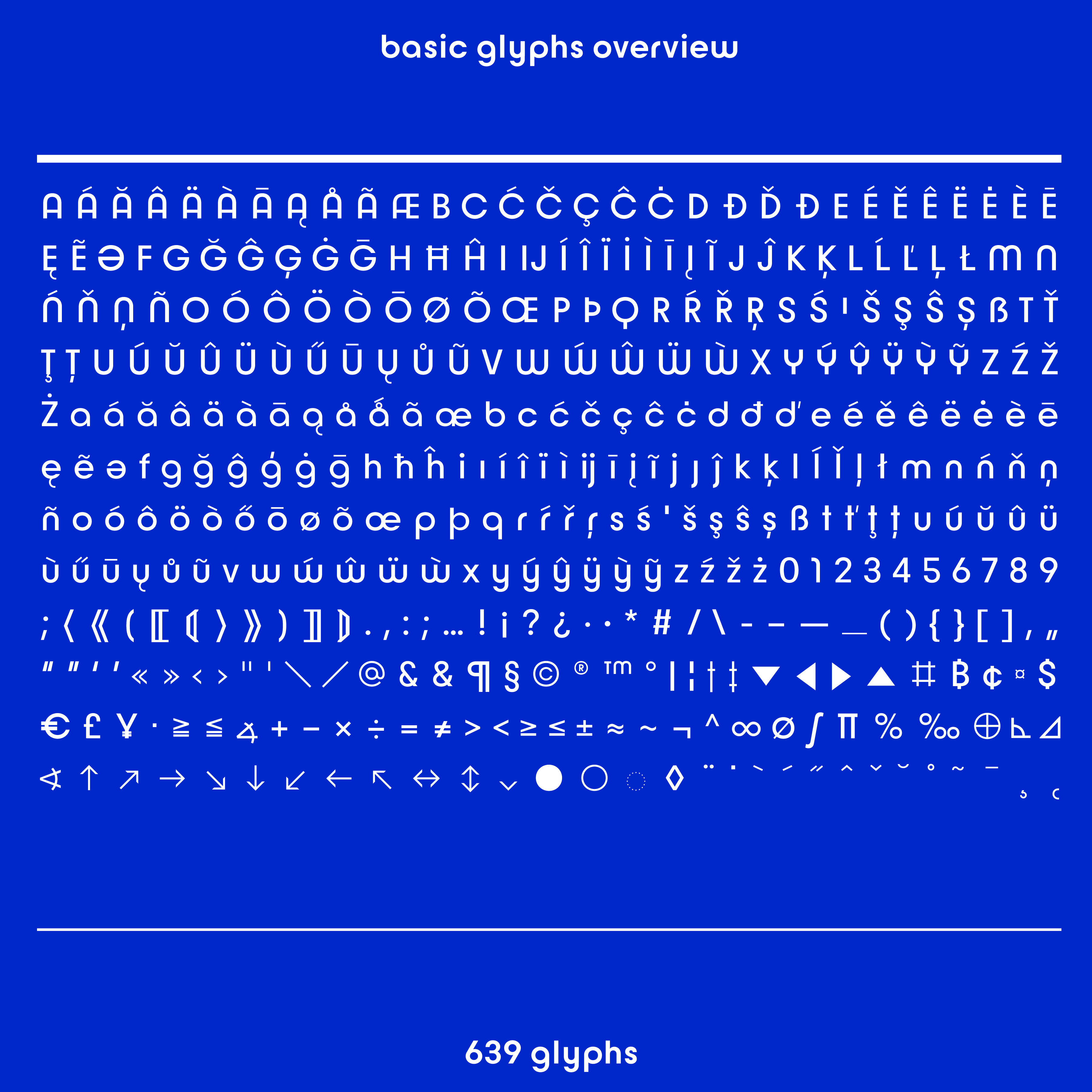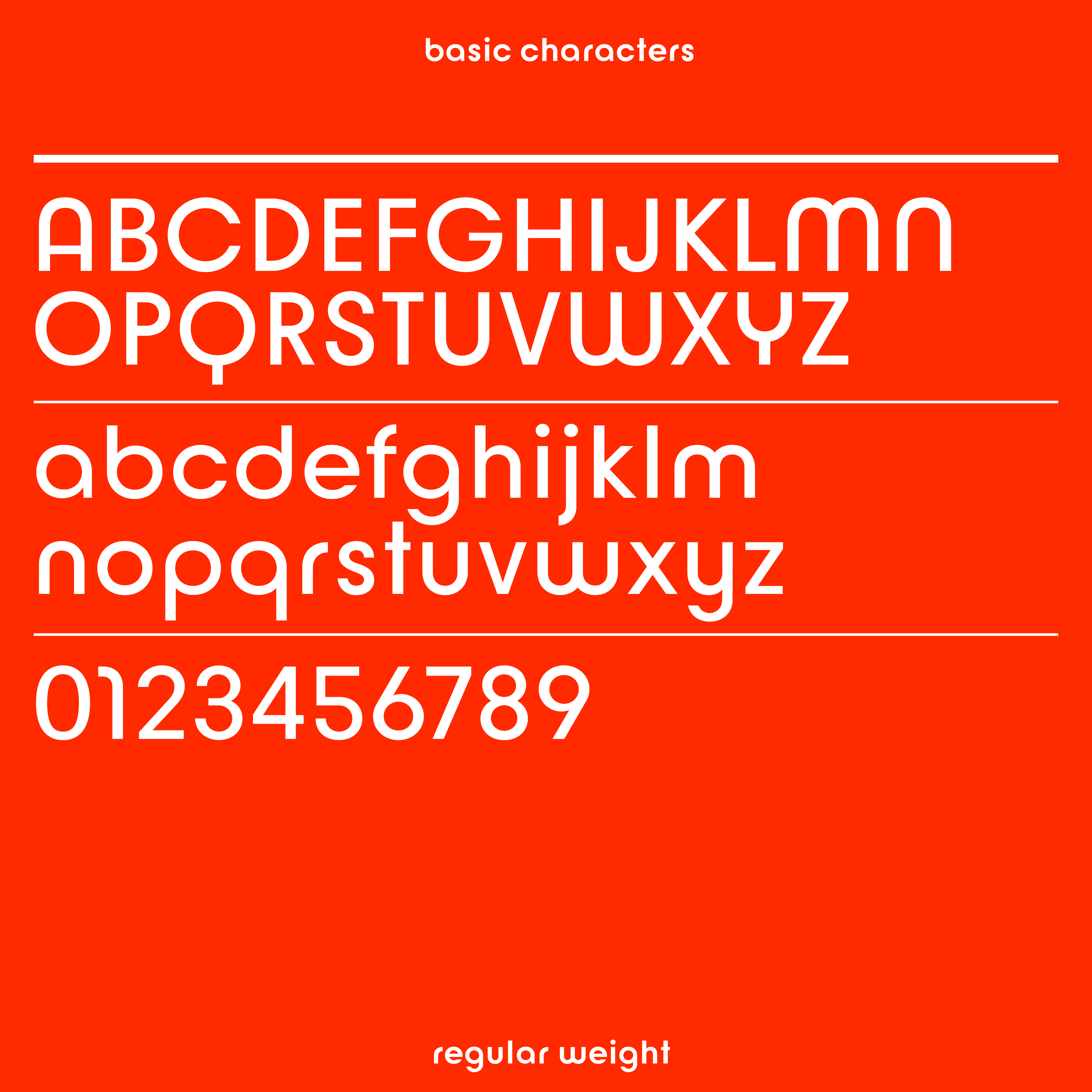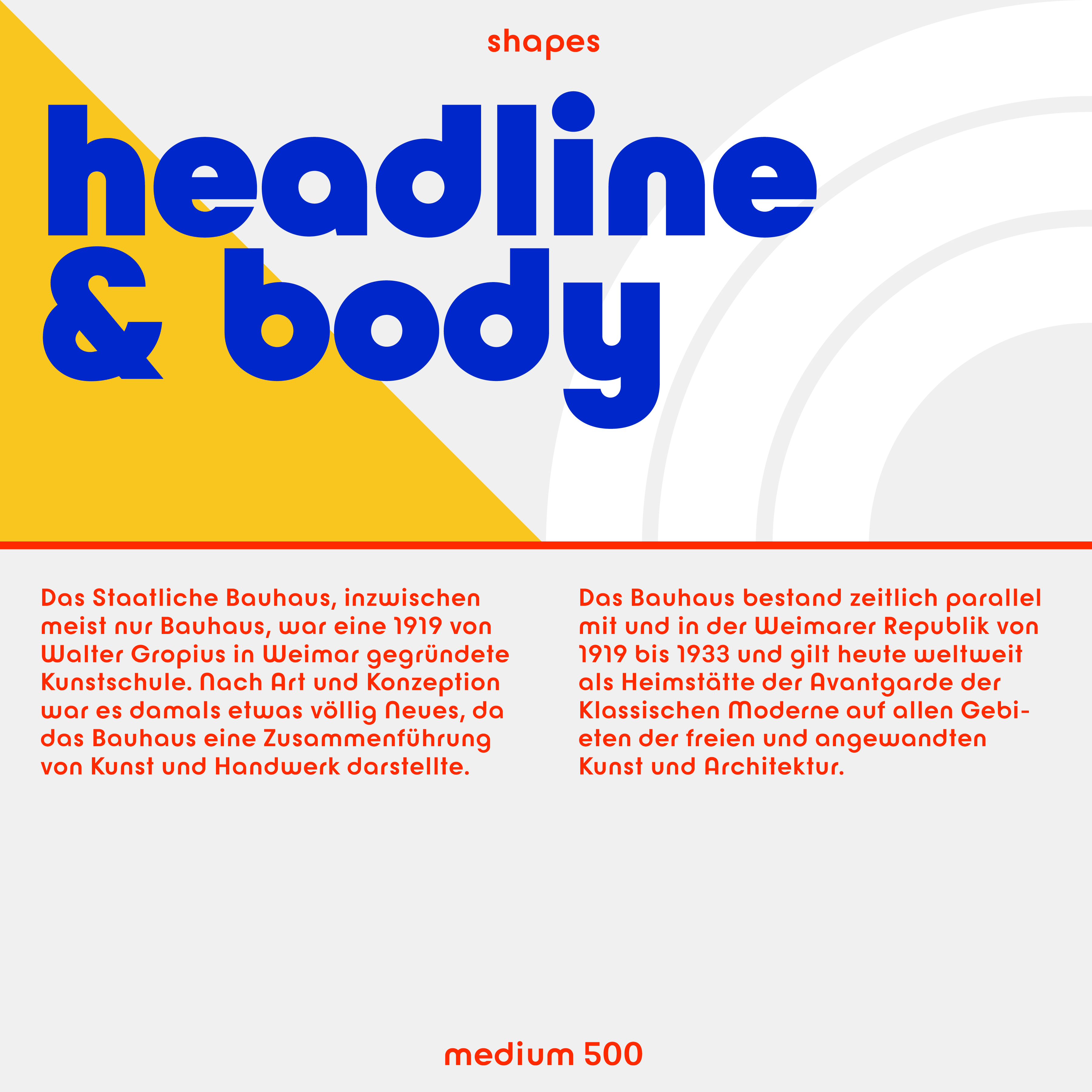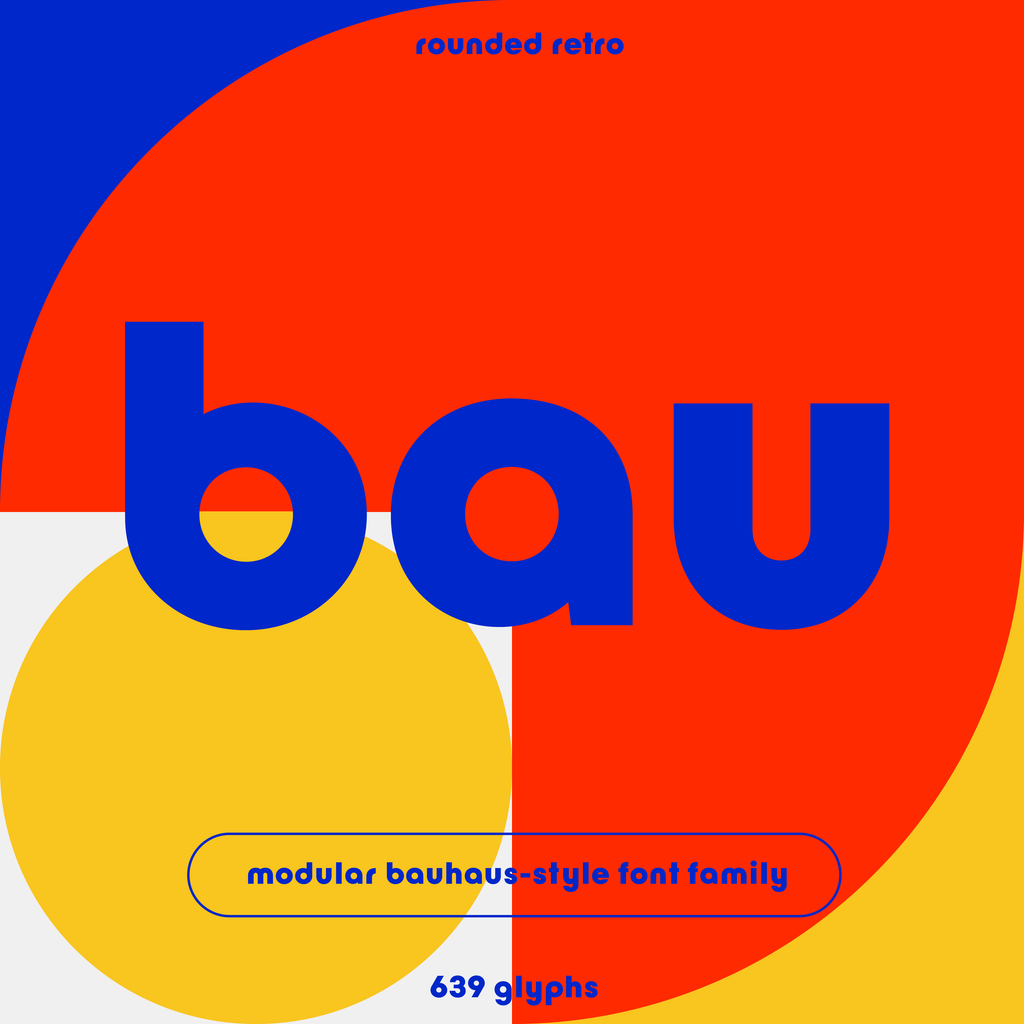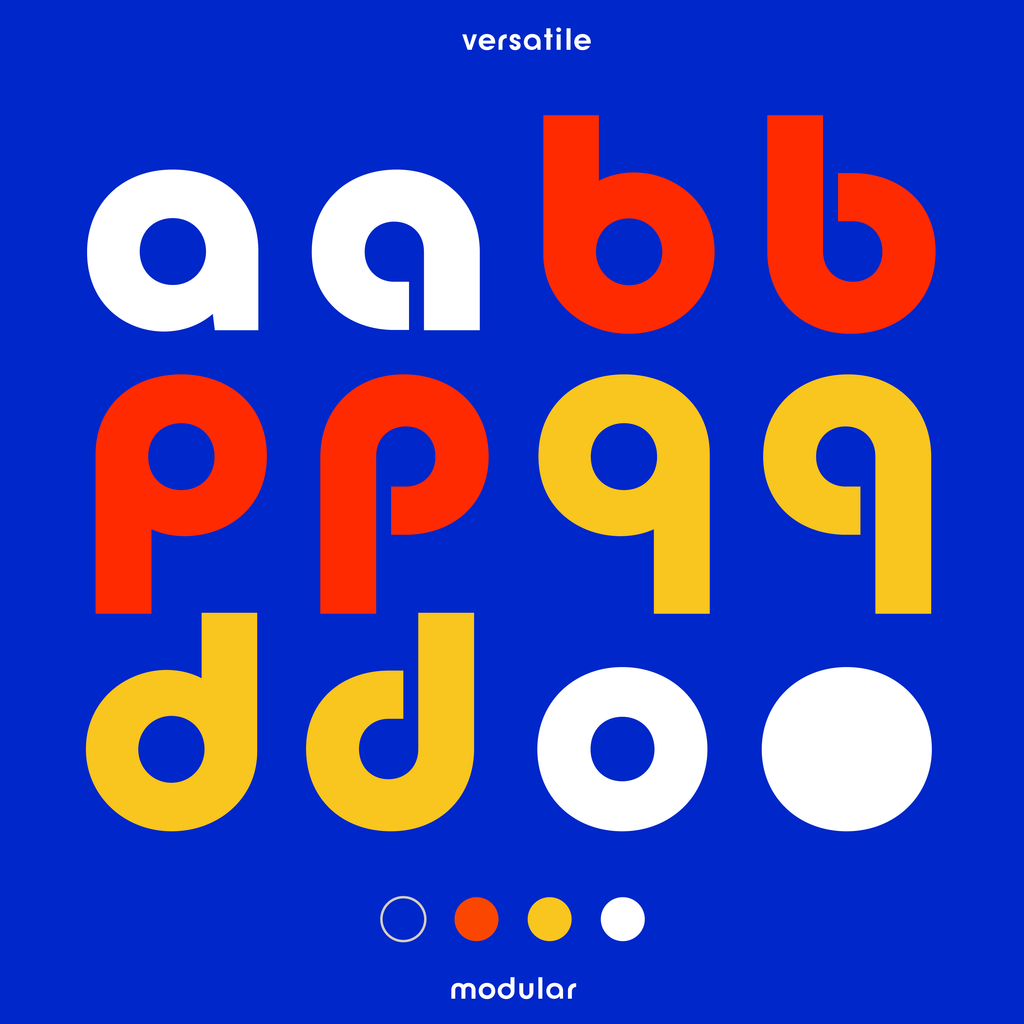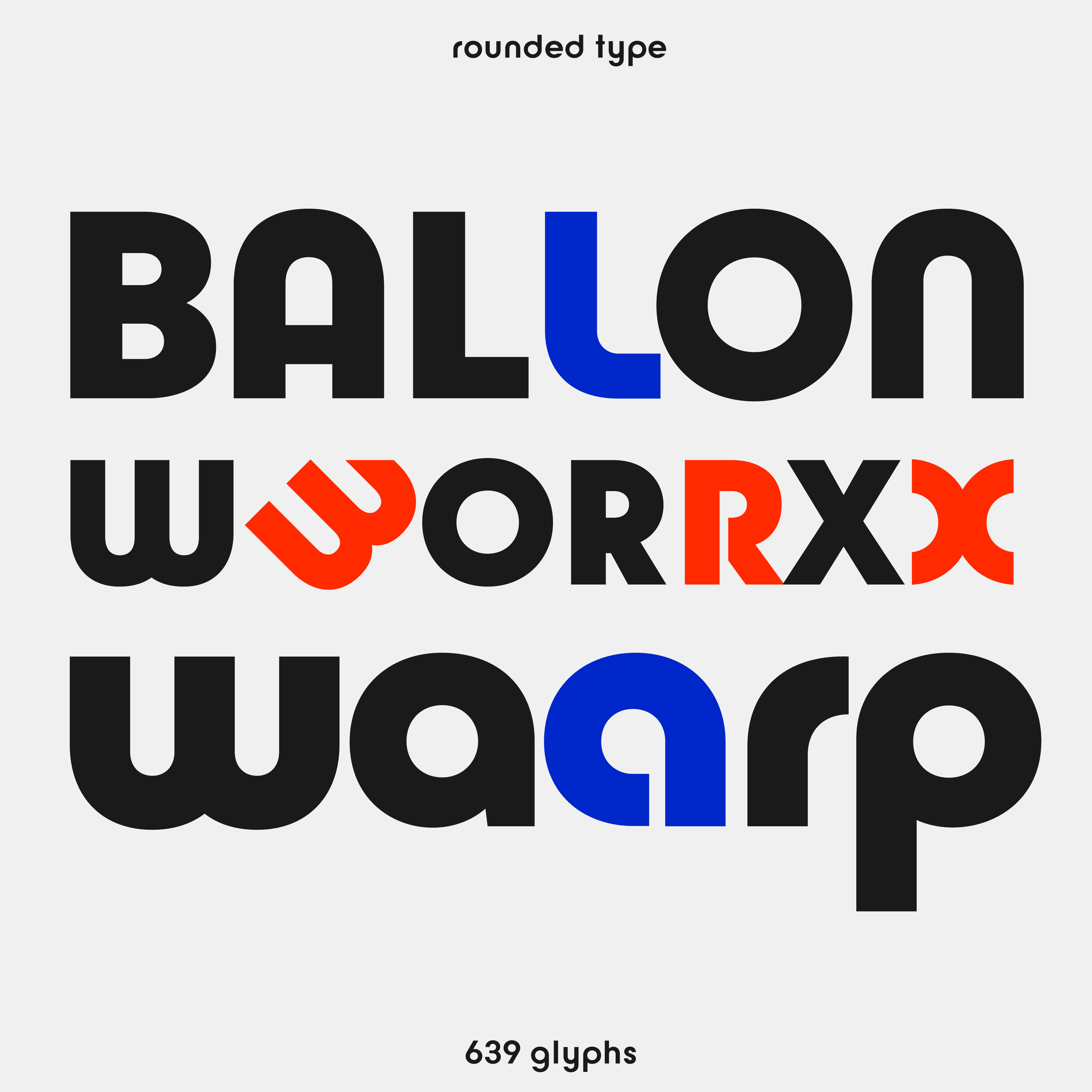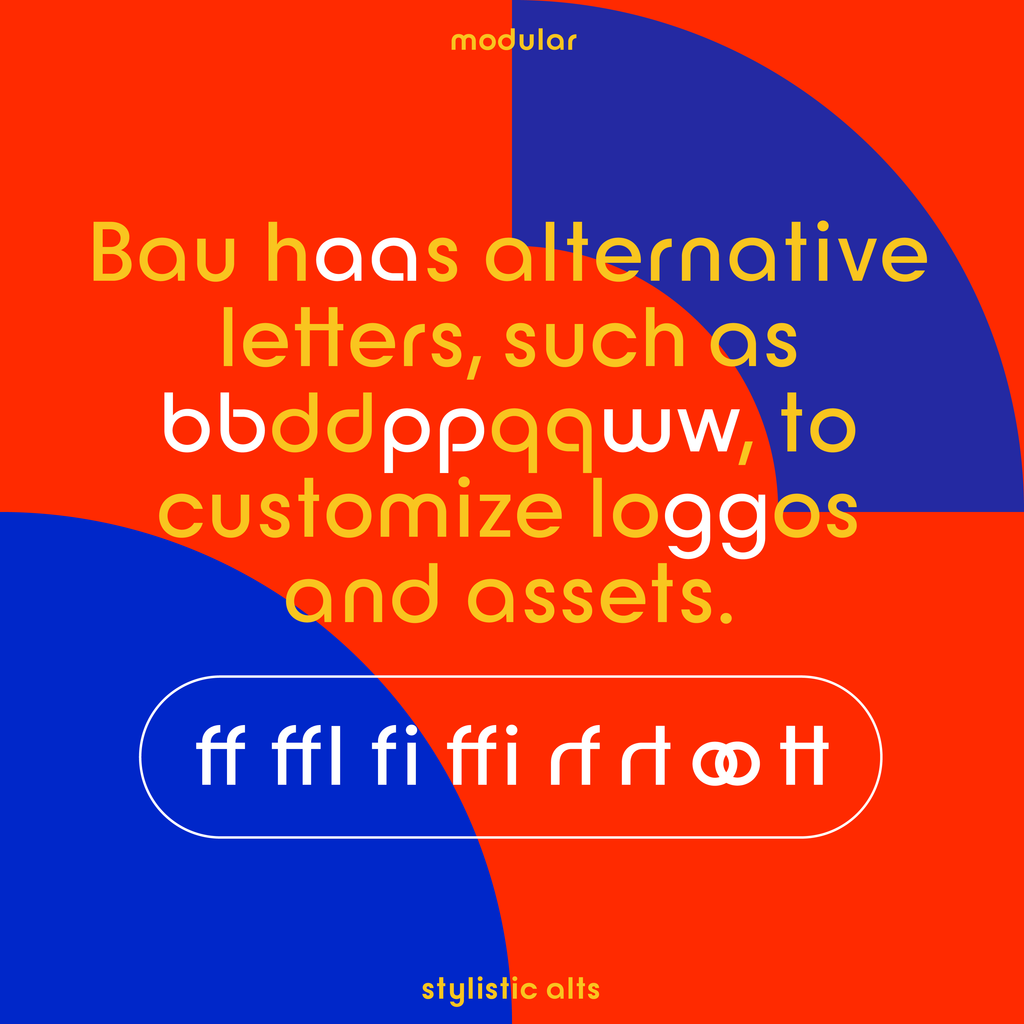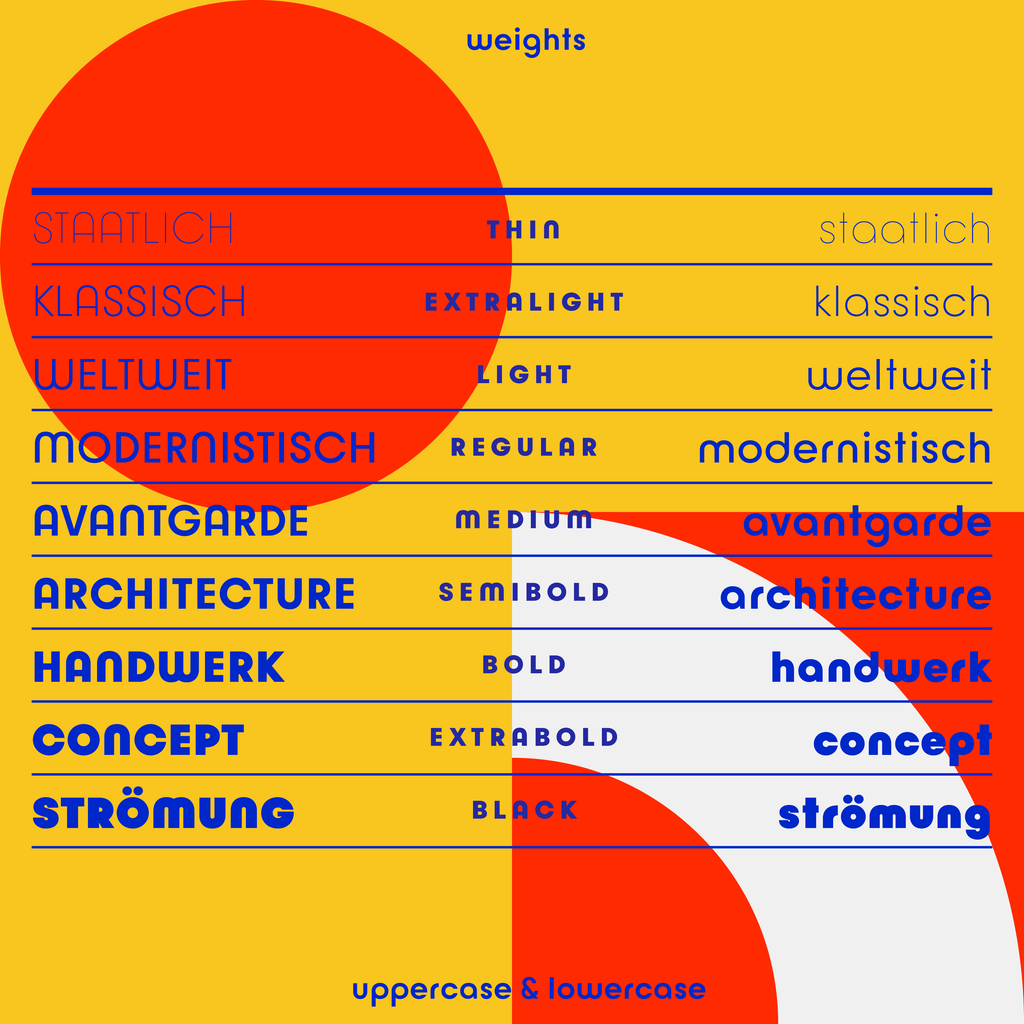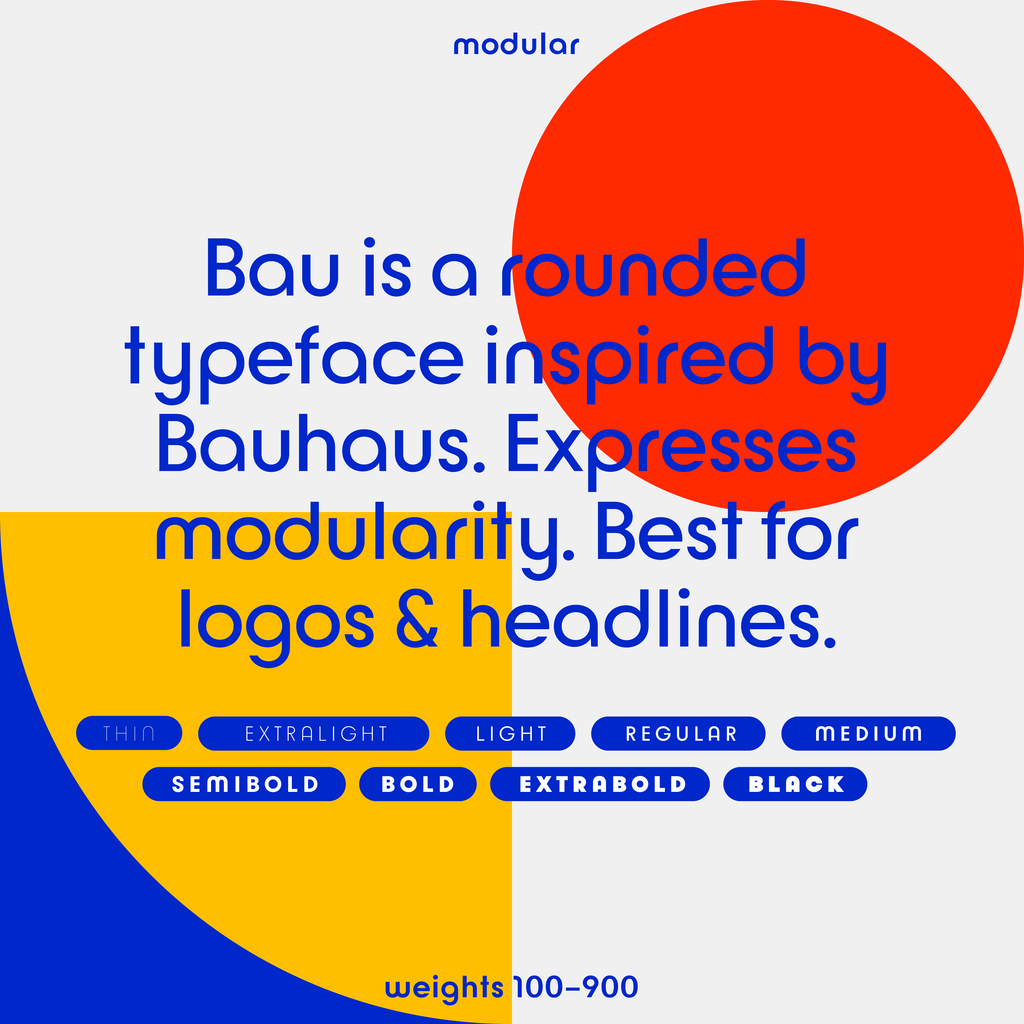
Bauhaus Bau—Rounded sans-serif font for modern retro styles
Bauhaus Bau is a rounded retro font based on a modular style. Its extensive alternate characters make it easy to create customized logos, titles, and branding. The font’s geometric and reduced shapes give it a nostalgic but classy feel, perfect for projects that blend vintage with Bauhaus and midcentury design aesthetics. Available in 9 single font weights and as a full family (with variable font), this typeface works for bold and minimal applications.